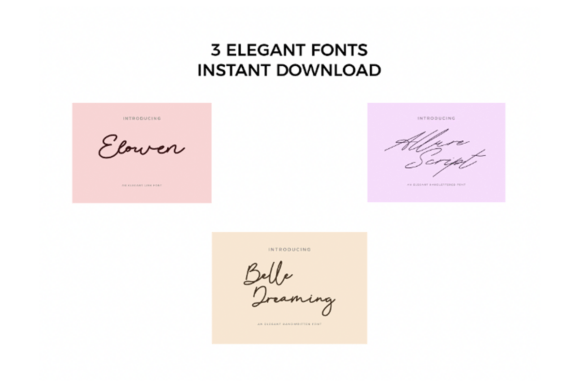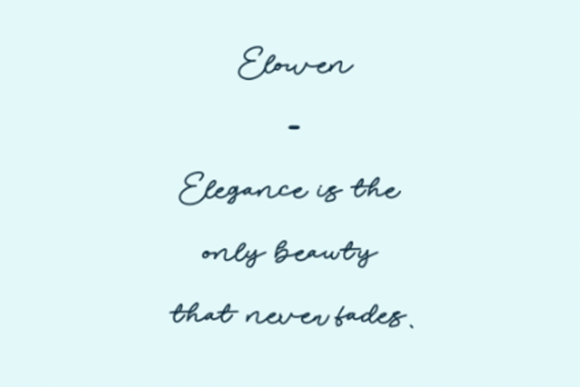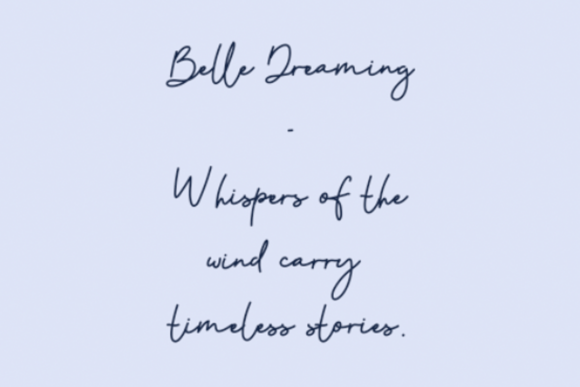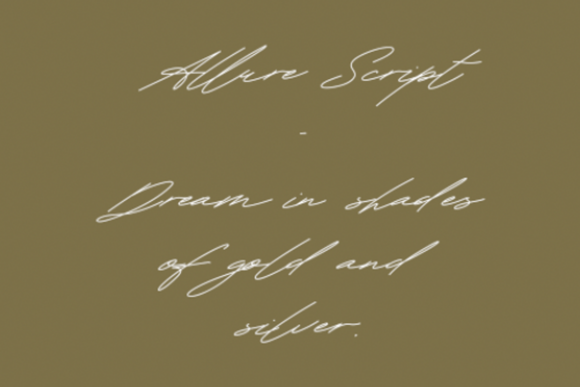
Introduction to Monoline Bundle Font
Introducing Elowen, Belle Dreaming, and Allure Script- an enchanting selection of singular line fonts that eloquently replicate the gentle curves and effortless fluidity of personal handwriting.
Each font in this distinctive collection, pays a radiant tribute to the complex rhythms and inherent uniqueness ingrained in individual calligraphy These creative typefaces weave together artistic sophistication and innate appeal, infusing every word they inflection with an unparalleled dash of personality.